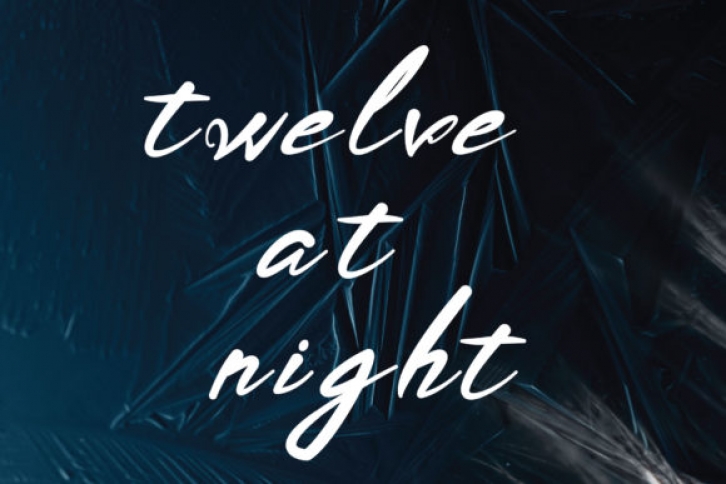
Twelve at Night is a beautiful and flowing handwritten font. It has a smooth touch and a lovely style and it will easily elevate each of your design ideas.